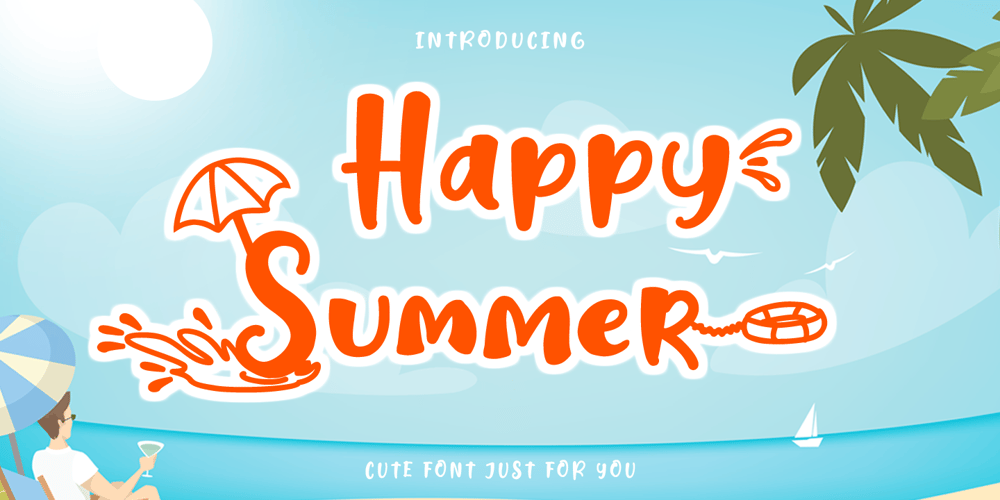
Happy Summer Font Family was designed by Aditiyo Dwi Putranto and published by Creaditive Design. Happy Summer contains 1 styles and family package options. Happy Summer is a cute display font, featuring well rounded characters. It will add an incredibly joyful touch to your designs. Add this beautiful font to each of your creative ideas and notice how it makes them stand out!